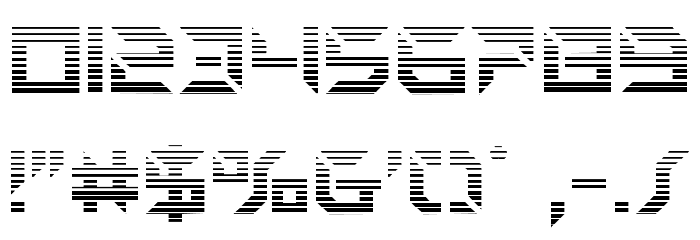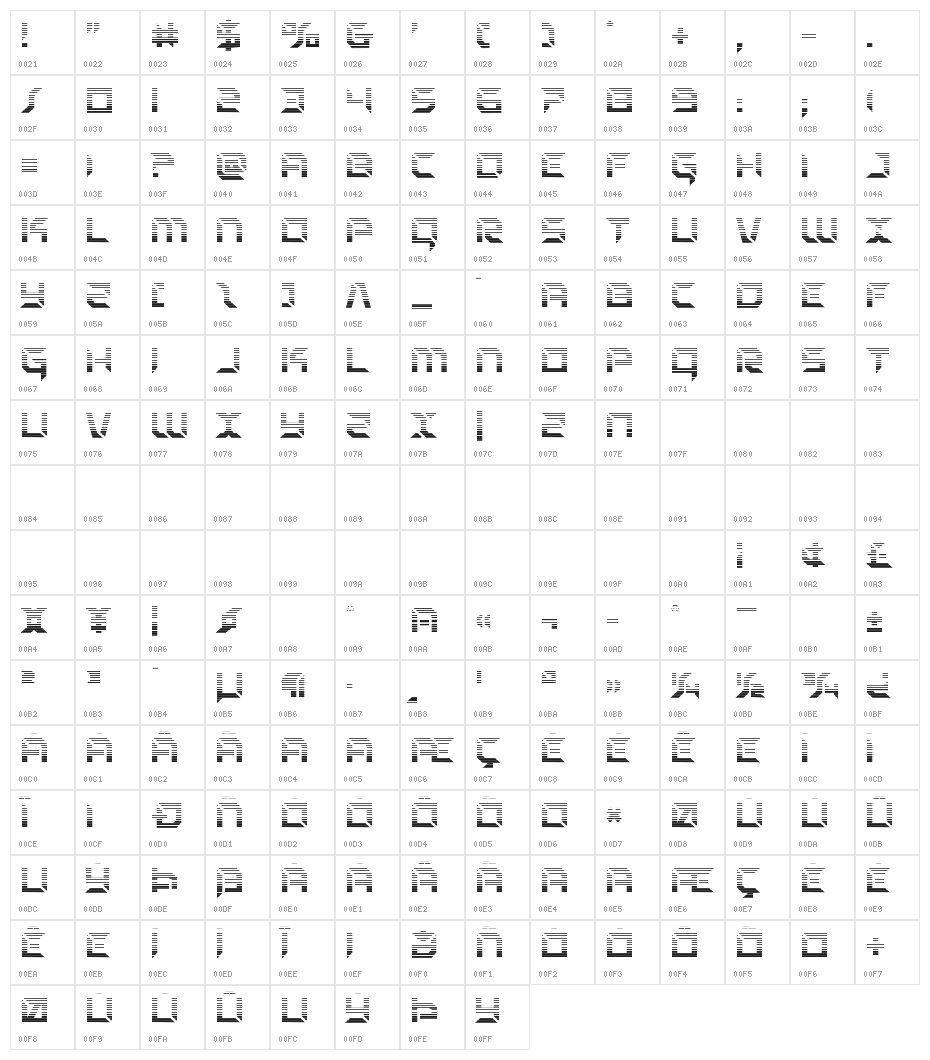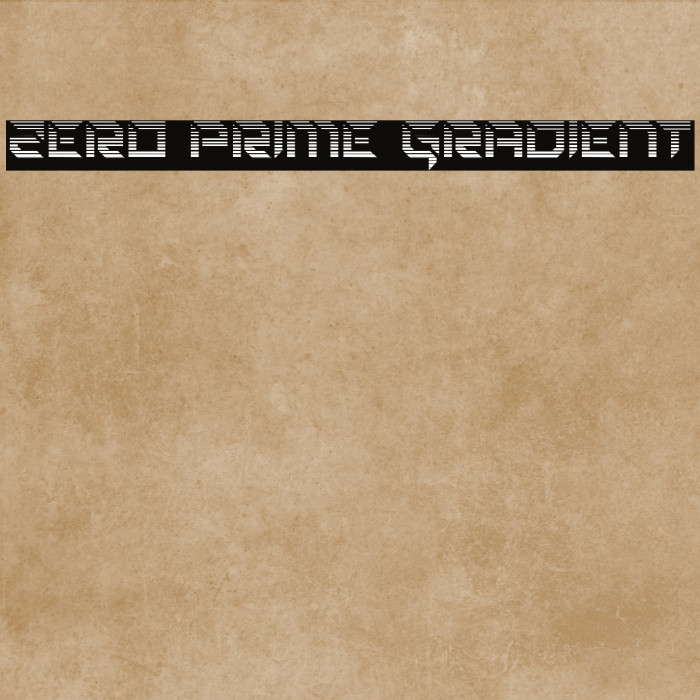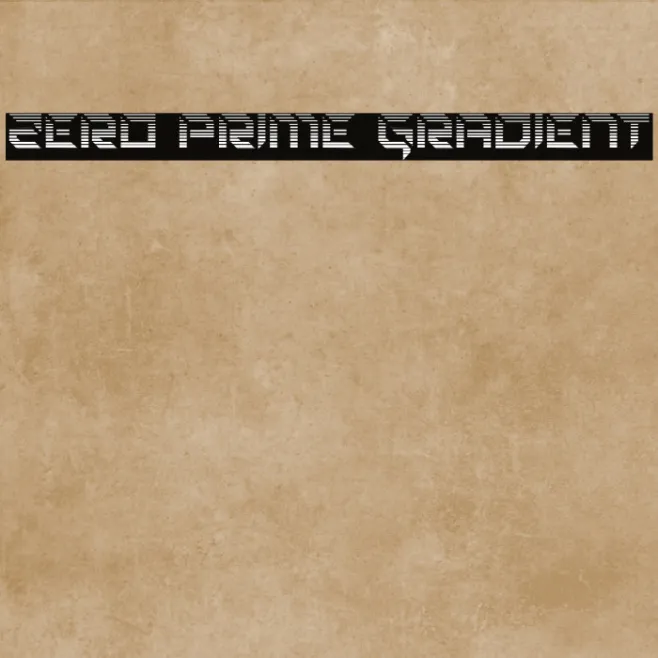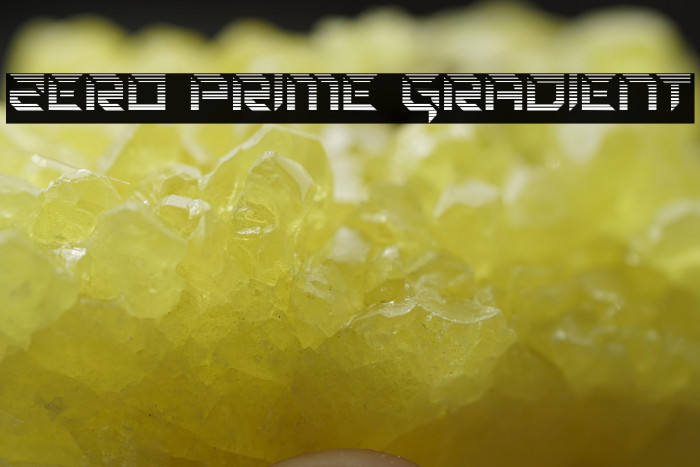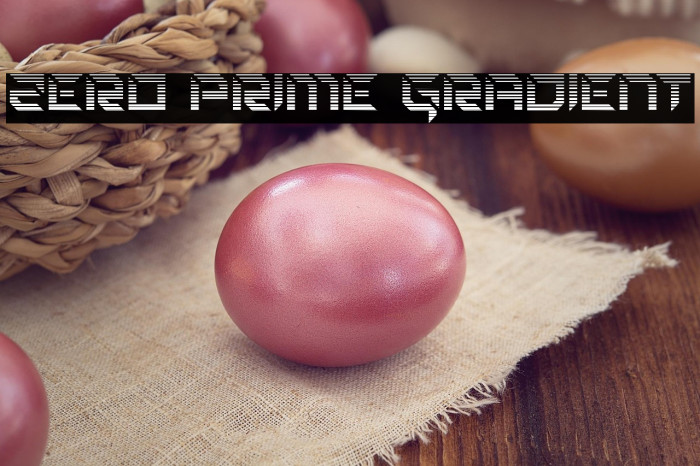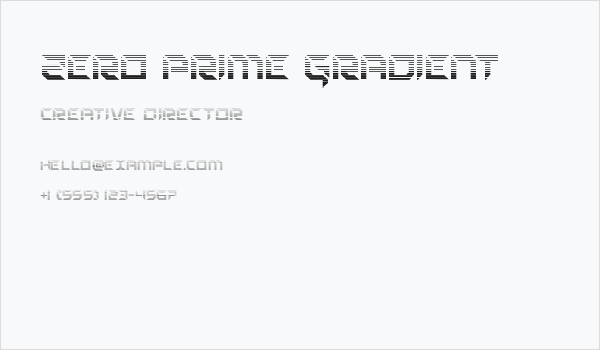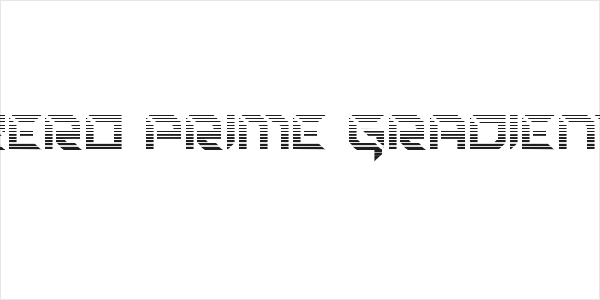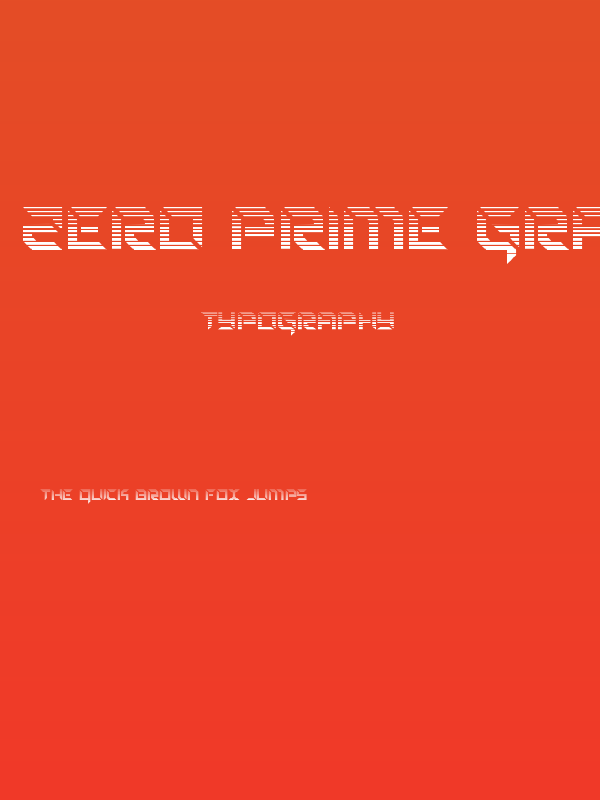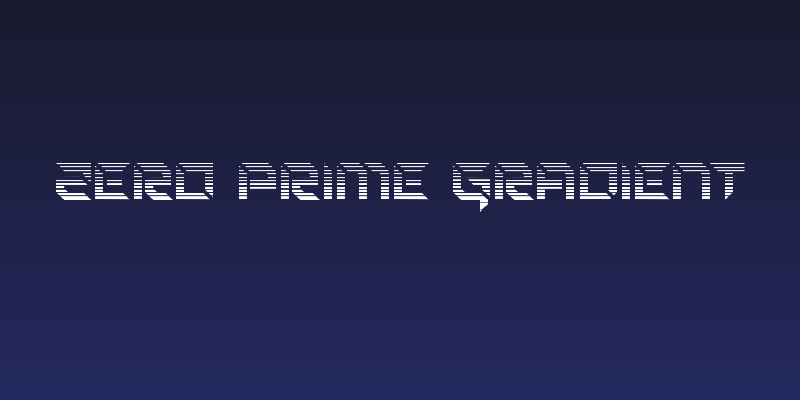
Zero Prime Gradient Font
Zero Prime Gradient Description
This font features a futuristic, digital aesthetic with a distinct gradient effect created by horizontal lines. Each character is composed of segmented lines that give it a dynamic and modern appearance. The uppercase and lowercase letters maintain a consistent style, emphasizing sharp angles and geometric shapes. The numbers and special characters follow the same design principles, ensuring uniformity across all glyphs. This font is ideal for projects that require a tech-savvy or sci-fi theme, offering a unique visual impact.
| Proposed Projects | Ideal for tech-themed designs, sci-fi posters, video game graphics, and digital branding. |